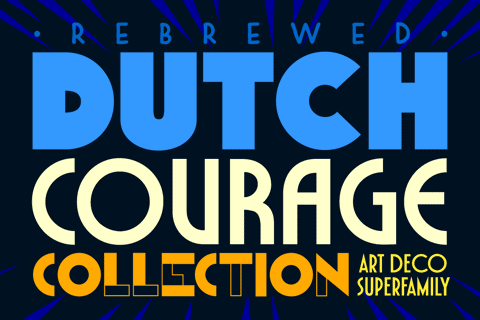
Dutch Courage Collection
Citizens of greater metropolis rejoice! Comicraft’s Dutch Masters have Rebrewed DUTCH COURAGE, the fonts originally created to give a crisp, clean, Art Deco look to DC's BATMAN ADVENTURES, and later known for lending Kurt Busiek’s ASTRO CITY its classy, streamlined typographic style.
Comicraft Fontmeister John Roshell has expanded the original four weights into four complete families -- a total of sixteen weights plus two Variable fonts, with characters to support over 200 languages.
ALE is a classic, sharp 1920s Art Deco style with five weights from "Lite" to “Stout”. LAGER has a rounder, 1970s vibe, with weights from "Pale" to "Schwarz". Both include four sets of Stylistic Alternates to access additional letter shapes, and a Variable font to choose any weight from lightest to heaviest.
HALF & HALF is an ultrabold display font in "Empty" and "Full" styles, which can be layered to create exciting chromatic effects.
Finally, DRAUGHT is a tall, elegant hand-rendered font in Wide & Tall styles with Regular & Bold weights. Each include automatic alternate letters to provide a hand-drawn appearance, two sets of Stylistic Alternates, and Comicraft's patented Crossbar I Technology™ to put that character in the right spot in comic book dialogue.
Comicraft's Rebrewed Dutch Courage Collection is ready to serve up a barrelful of delicious options!
Dutch Courage Collection – Retro Art Deco & Streamlined Comic Font Bundle
Give your titles and dialogue the sleek, sophisticated feel of classic 1920s Art Deco with the Dutch Courage Collection. Originally created for iconic titles like Batman Adventures and Kurt Busiek's Astro City, this comprehensive font bundle features four sub-families (Ale, Lager, Half & Half, and Draught) totaling 16 weights plus Variable Font files. Supporting over 200 languages with stylistic alternates and Comicraft’s Crossbar I Technology™, this complete bundle lets you save over 30% while elevating your comic typography. Upgrade today!